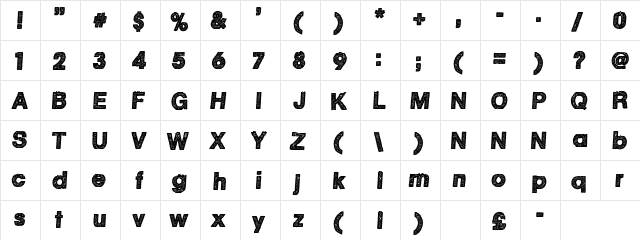
Positive Reinforcement Regular
| Designer | Andrew McCluskey |
Design Context for Positive Reinforcement Typeface
Positive Reinforcement brings high-energy athletic personality to the page — its confident, muscular forms are built for impact.
A natural choice for gym brands, fantasy sports, jersey lettering, and action-driven headlines.
Pro Tip: Use Positive Reinforcement in all-caps headlines where its athletic energy can fully express itself. Pair with a solid, simple sans for supporting text.